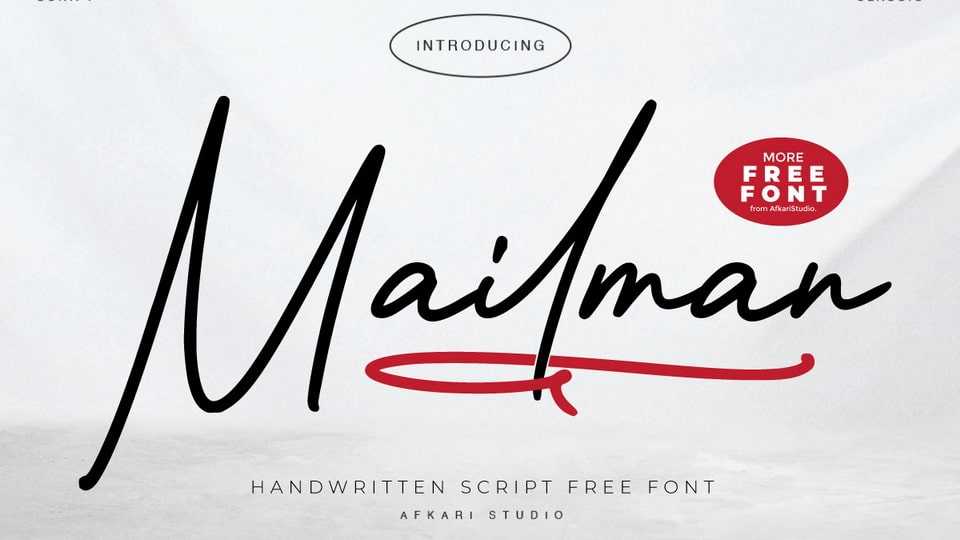
Download Mailman font, a modern and elegant signature-style handwritten script typeface designed to bring a sense of romance, sophistication, and charm.